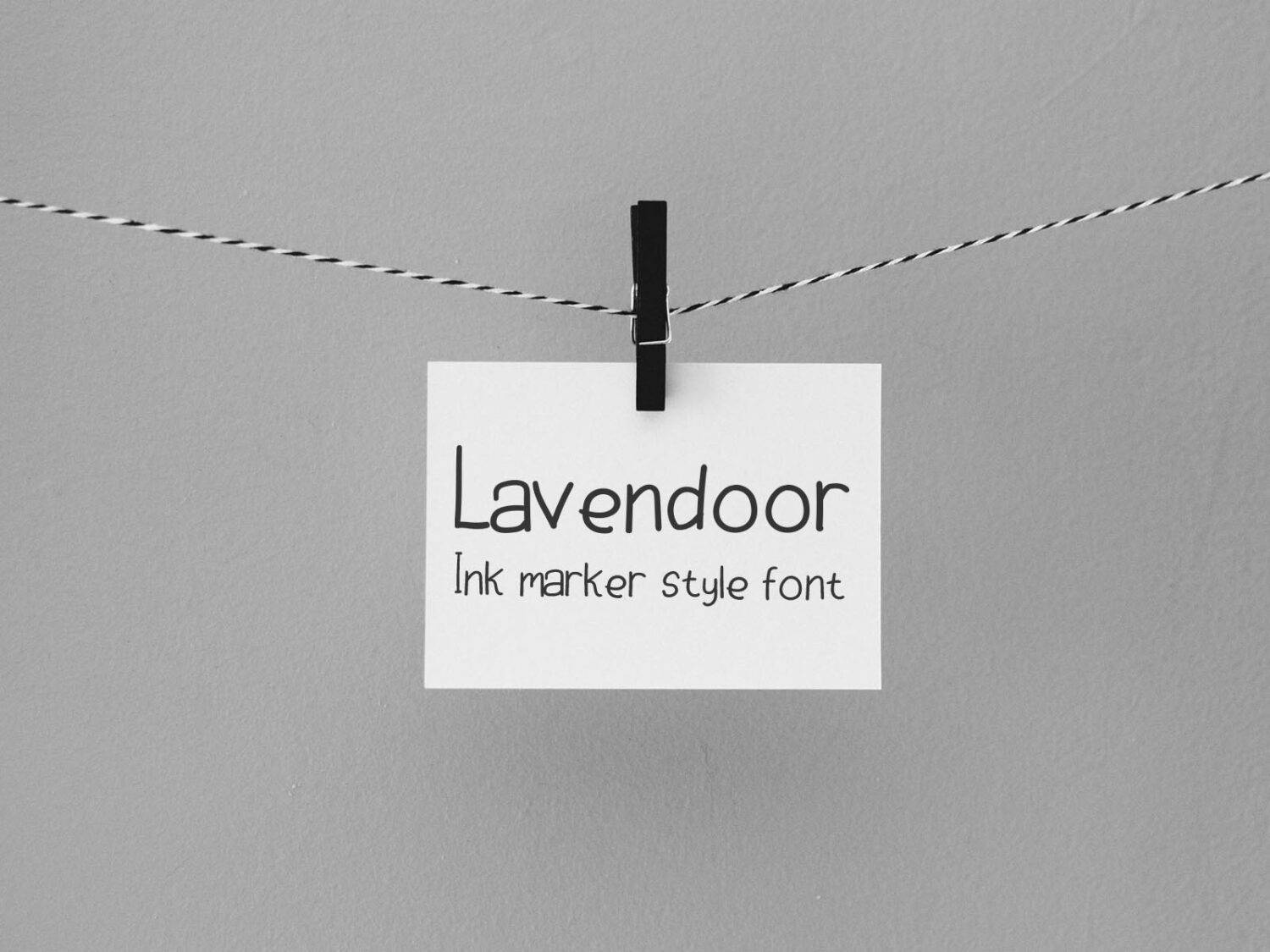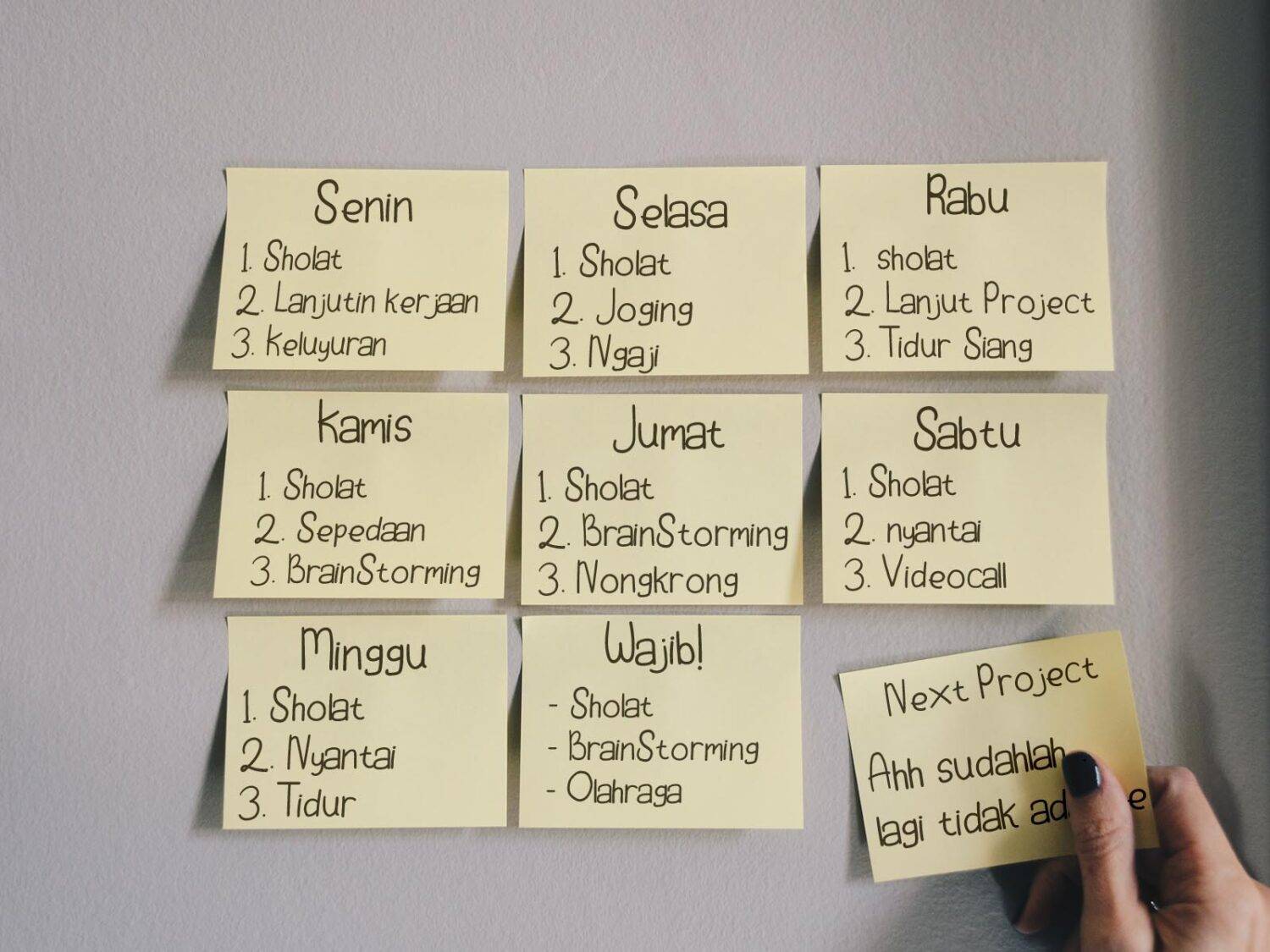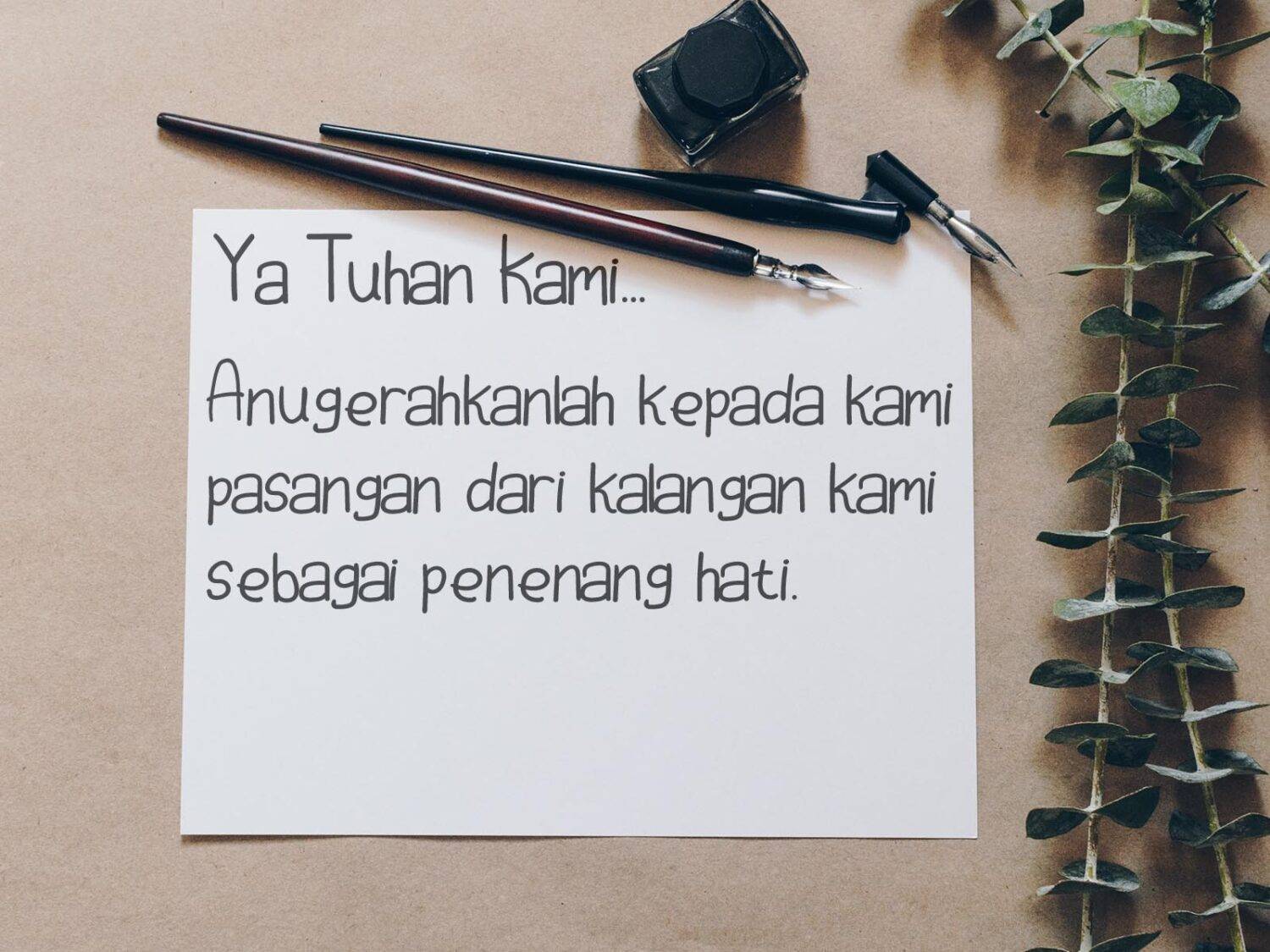
Lavendoor Script is a delicate, hand-drawn script font featuring slender, slightly irregular strokes that give it a charming, authentic feel. Its tall, narrow letterforms with a casual flow evoke a sense of friendliness and individuality, making it ideal for personal branding, invitations, and artistic projects that benefit from a warm, approachable touch. This font works best in creative and informal contexts where a handwritten, expressive style is desired.
Lavendoor Script Font
About Lavendoor Script Font